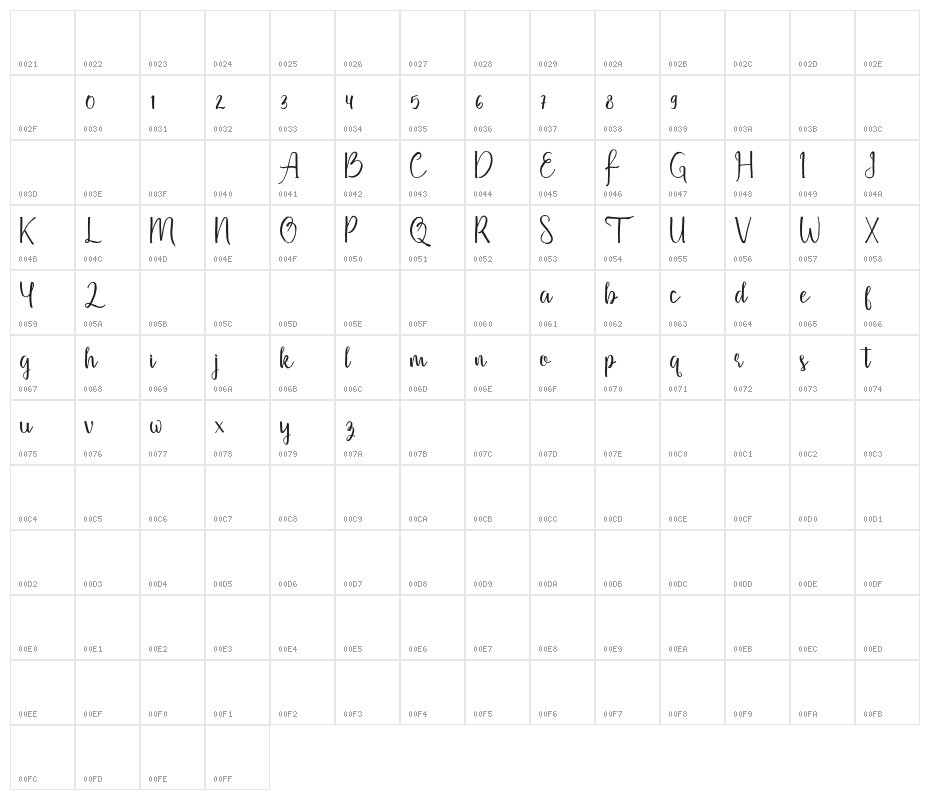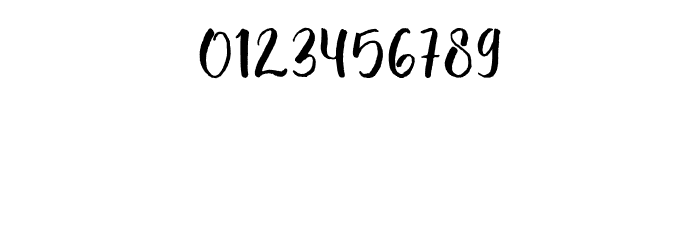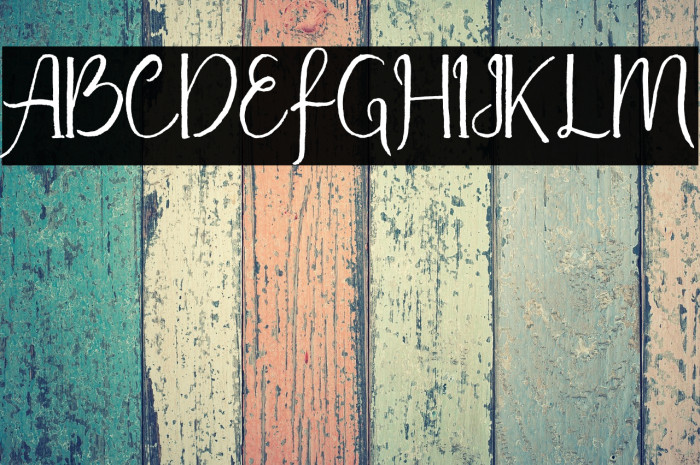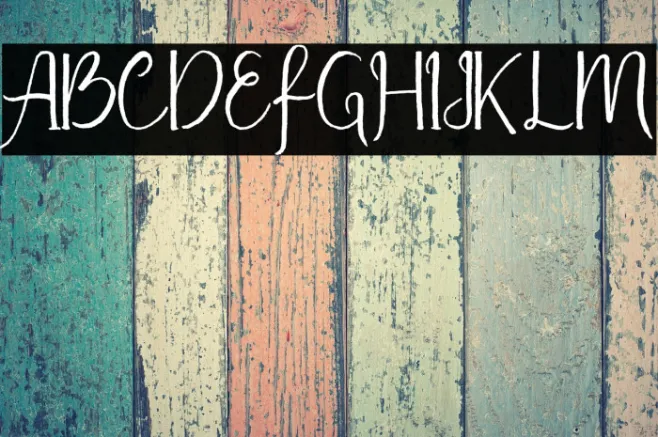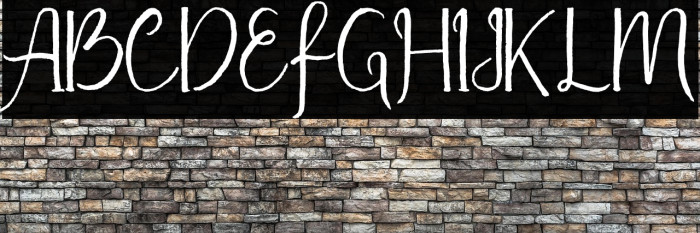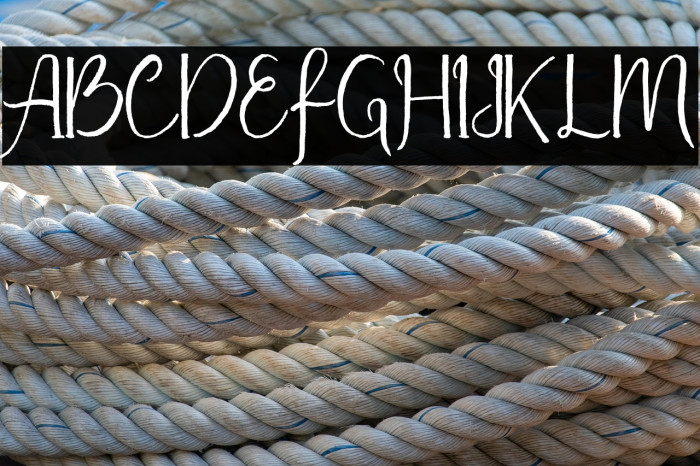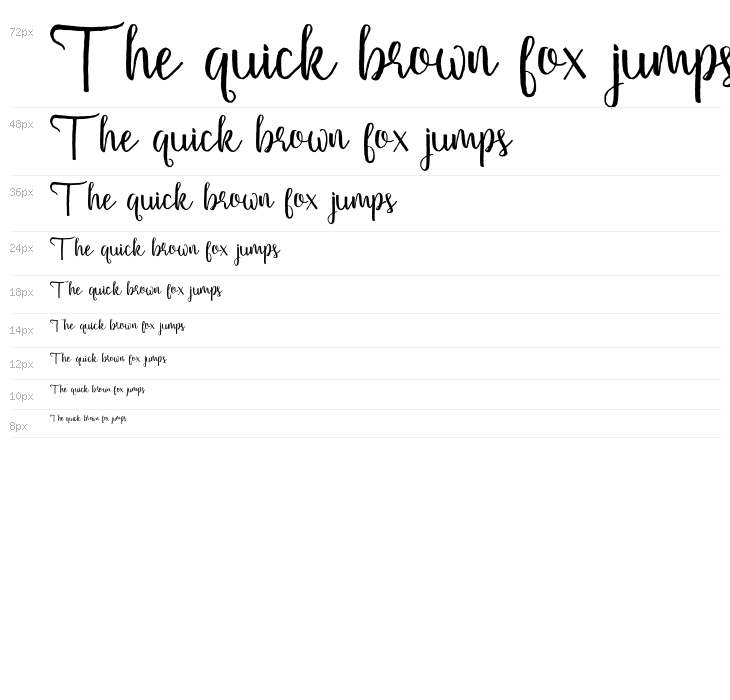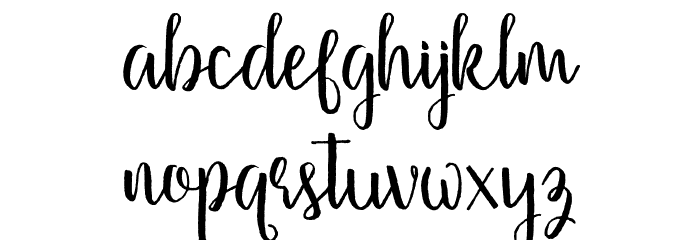
Firdaus Font
Firdaus Description
This font features a playful and artistic script style, characterized by its fluid and dynamic strokes. The uppercase letters are bold and expressive, with a slight slant that adds a sense of movement. The lowercase letters maintain a consistent flow, with rounded edges and varying stroke thickness that give it a hand-drawn appearance. The numerals are clear and legible, matching the overall whimsical aesthetic. Special characters are integrated seamlessly, maintaining the font's cohesive look. This font exudes a sense of creativity and spontaneity, making it ideal for projects that require a personal touch.